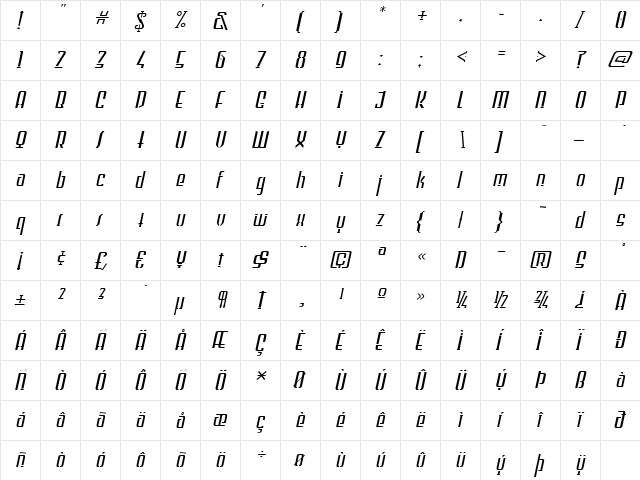
WILD1 Firstvision Tekkst Italic
Design Context for WILD1 Firstvision Tekkst Typeface
WILD1 Firstvision Tekkst takes a measured approach to typography — its balanced proportions and neutral character make it a reliable workhorse for both digital and print work. The dynamic lean of this cut emphasises speed and emphasis in any layout.
Pro Tip: Try WILD1 Firstvision Tekkst for annotation and caption copy alongside an upright companion — the contrast in angle creates a dynamic but ordered typographic system.